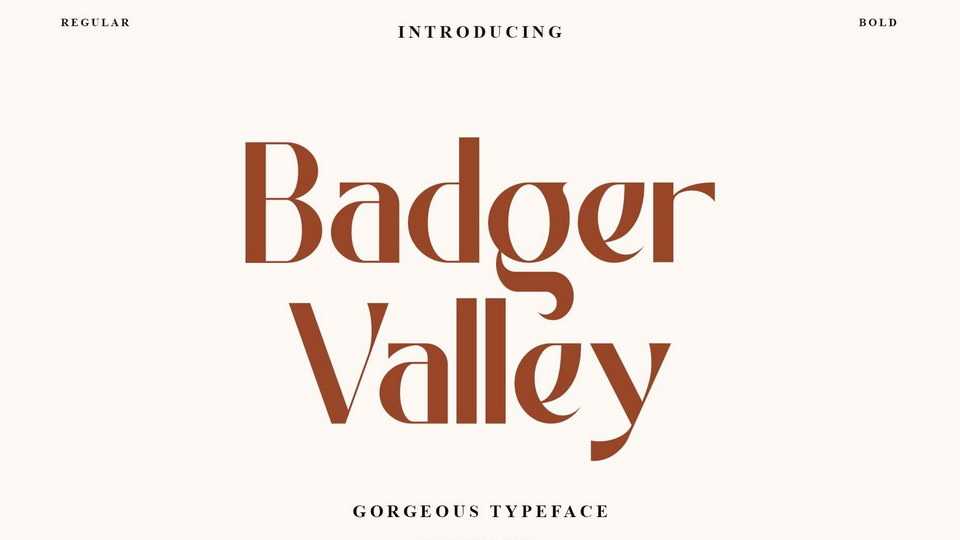
Download Badger Valley font, an elegant and modern sans serif typeface. With its ravishing style, Badger Valley font is perfect to create gorgeous wedding invitations, beautiful fashion art, eye-catching social media posts, and much more.
Designer: Heinzel Studio